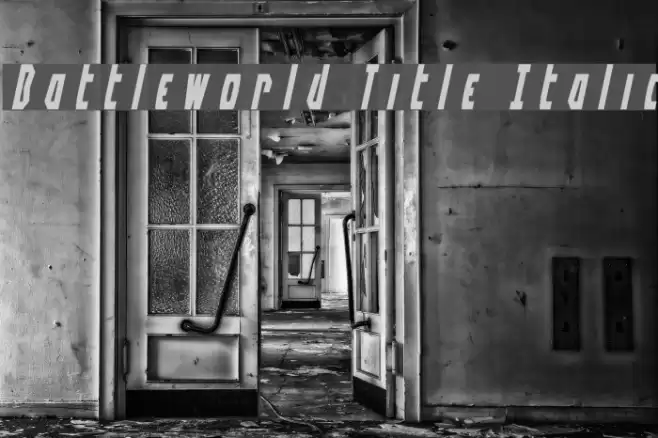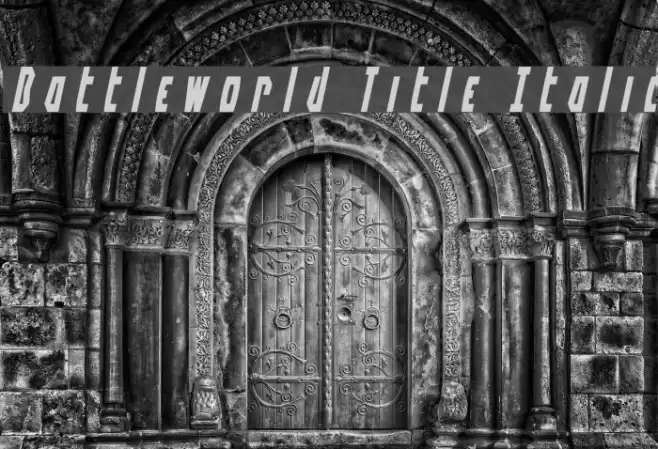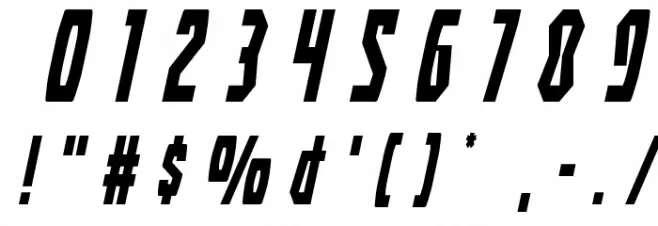
Battleworld Title Italic Font
Battleworld Title Italic Description
This font features a bold, italicized style with a futuristic and dynamic appearance. The characters are sharply angled, giving a sense of movement and energy. Each letter is distinct, with a consistent slant that adds to the overall sleek and modern aesthetic. The uppercase and lowercase letters maintain a uniform design, while the numbers and special characters complement the alphabet with similar angular forms. The font's design is highly legible, making it suitable for impactful and attention-grabbing text. Its unique style is ideal for projects that require a bold statement.
A bold, italicized font with a futuristic and dynamic design from Sci-fi fonts.